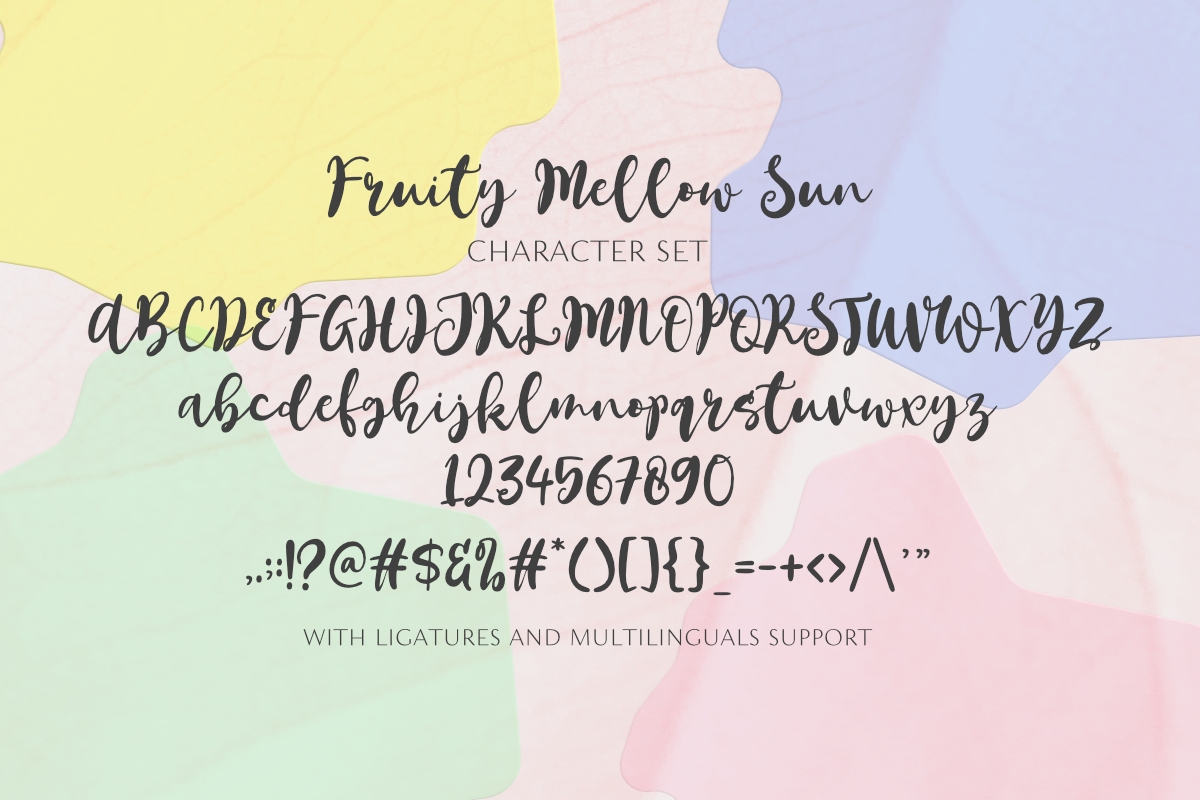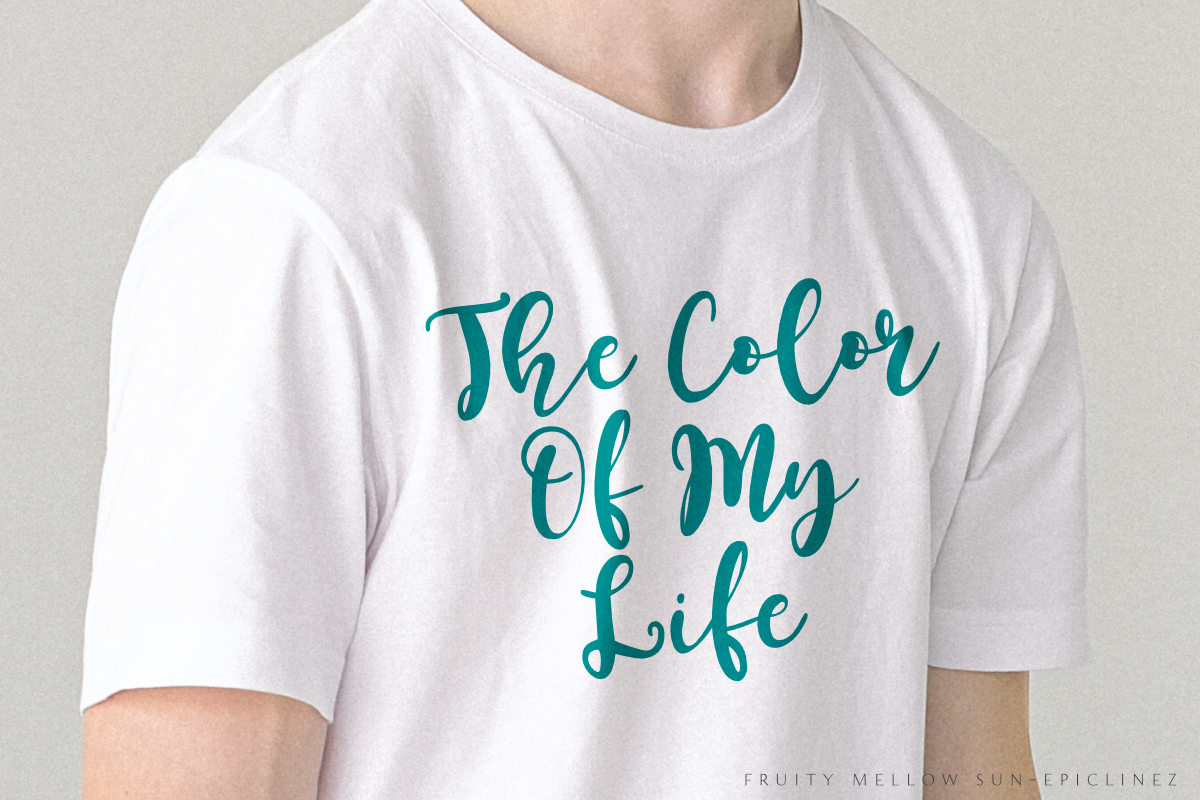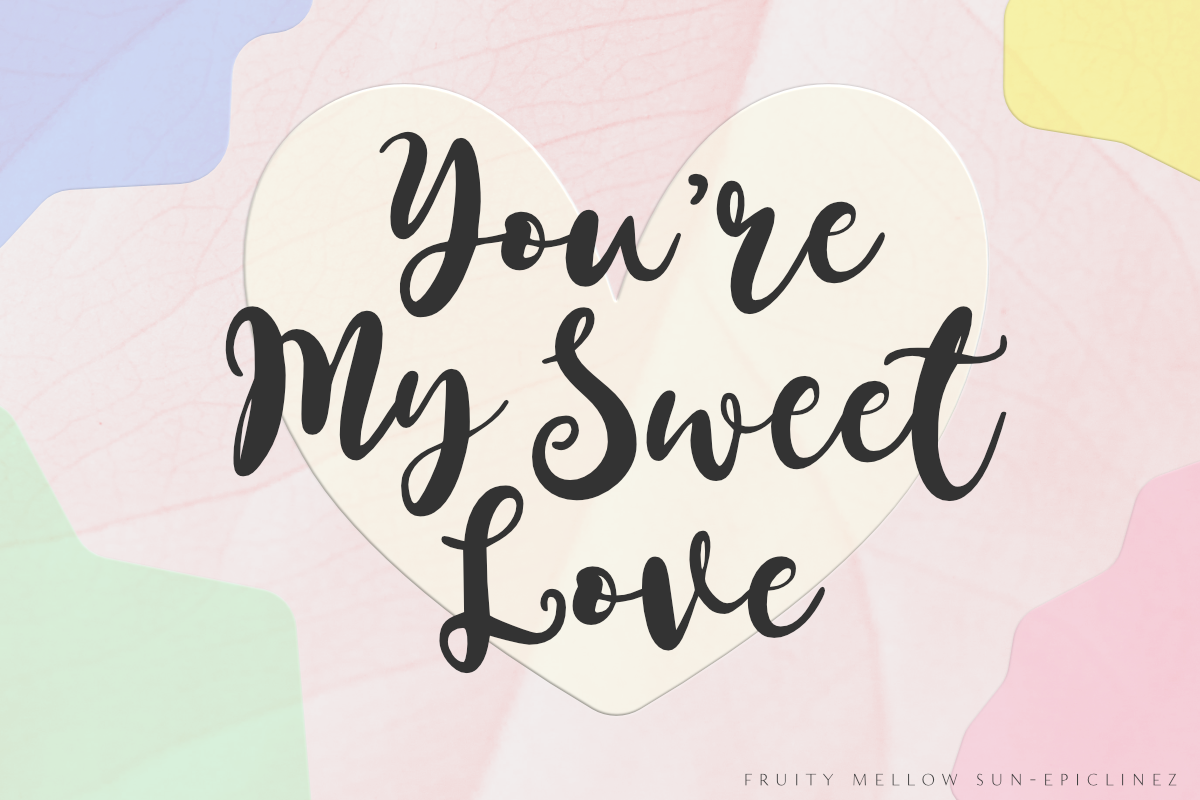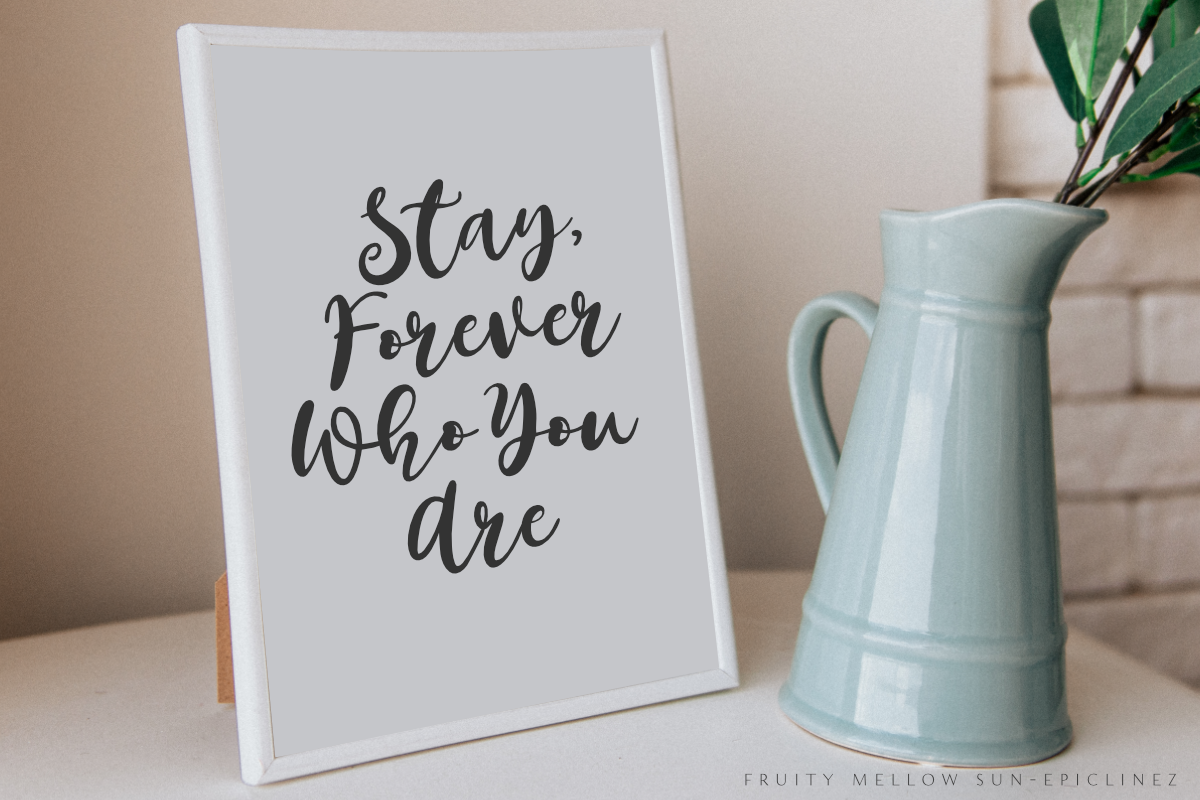
Fruity Mellow Sun
Fruity Mellow Sun is a lovely script font featuring charming, playful characters that seem to dance along the baseline. Add this font to your most creative ideas, and notice how it makes them stand out!
- Basic Latin A-Z & a-z.
- Numbers, symbols, and punctuations.
- Ligatures.
- Multilingual Support.
- Accented Characters : ÀÁÂÃÄÅÆÇÈÉÊËÌÍÎÏÑÒÓÔÕÖØŒŠÙÚÛÜŸÝŽàáâãäåæçèéêëìíîïñòóôõöøœšùúûüýÿžß